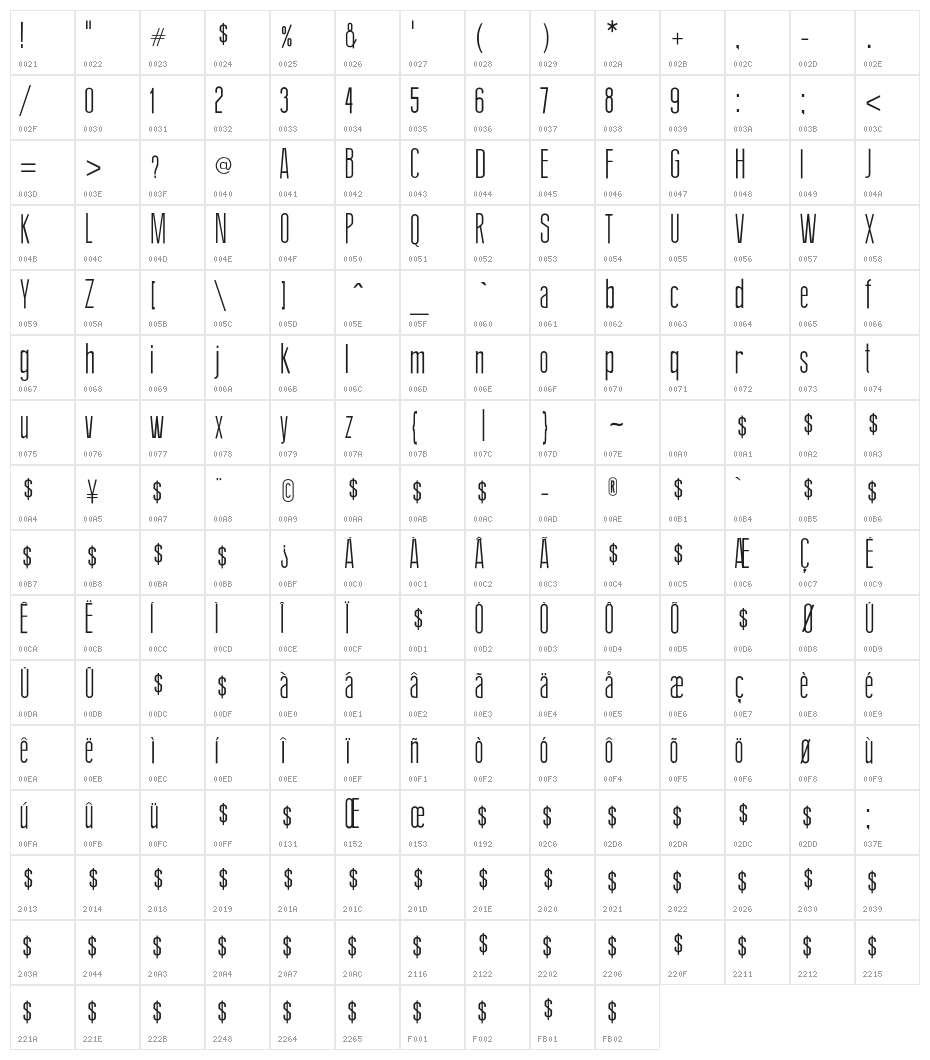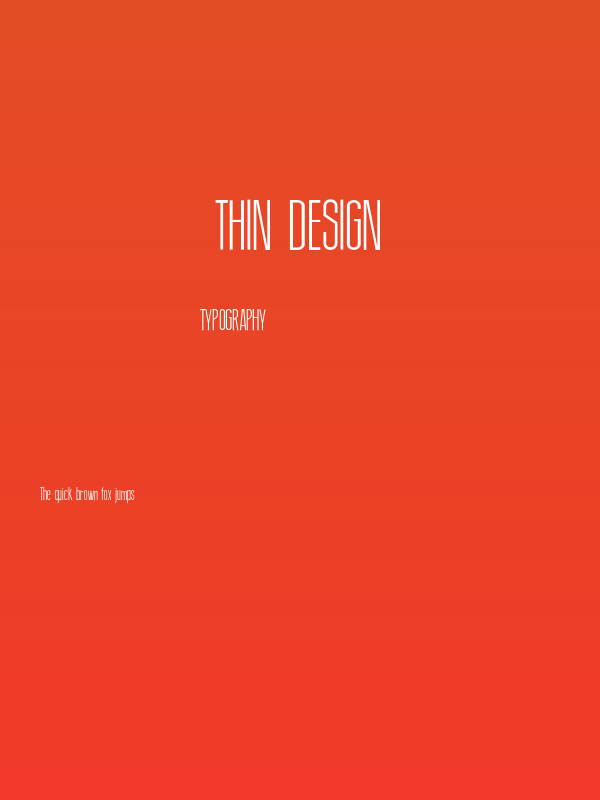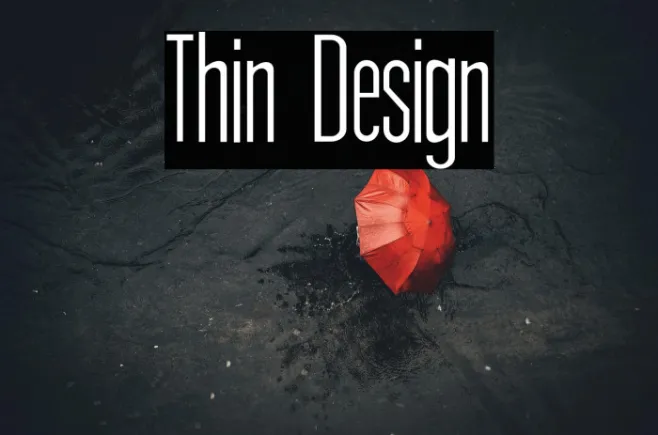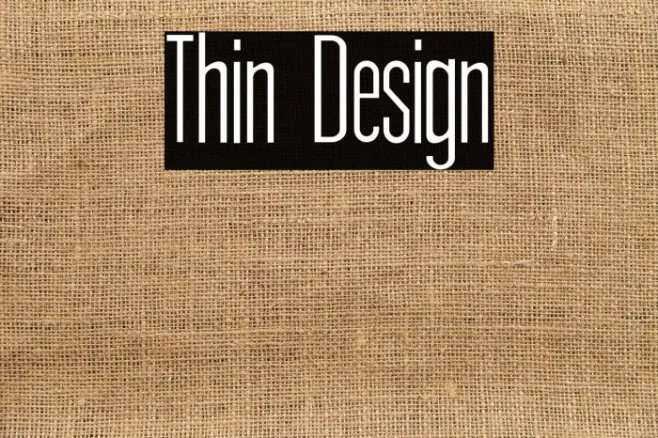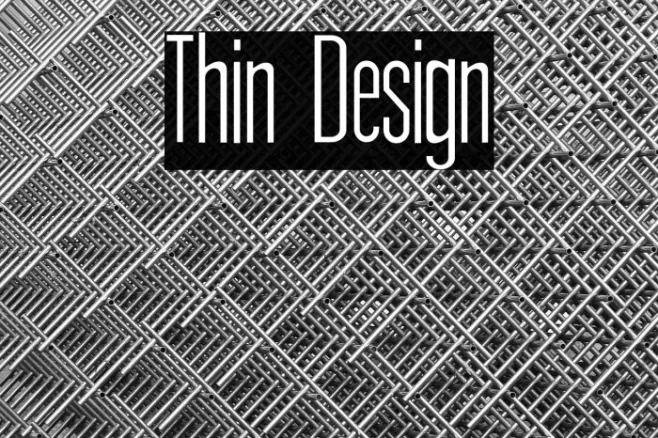
Thin Design Font
Thin Design Description
This font features a tall and slender design with a distinctly modern and minimalist aesthetic. The characters are elongated with a consistent stroke width, giving it a sleek and elegant appearance. The uppercase and lowercase letters maintain a uniform height, contributing to a cohesive look. The numbers and special characters are designed to match the overall style, ensuring visual harmony across all elements. This font's thin lines and clean structure make it ideal for projects that require a contemporary and sophisticated touch.
| Proposed Projects | Ideal for fashion magazines, luxury branding, modern websites, and minimalist posters. |